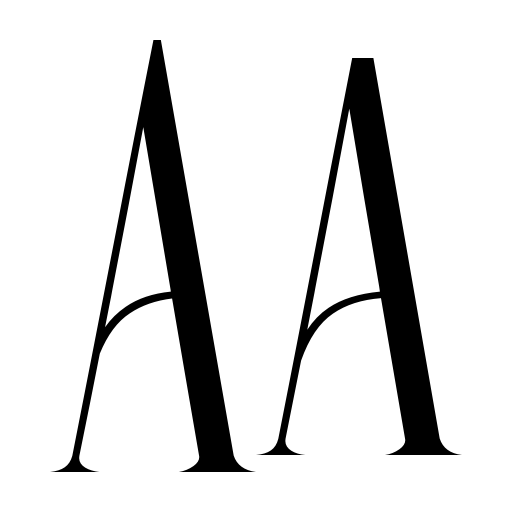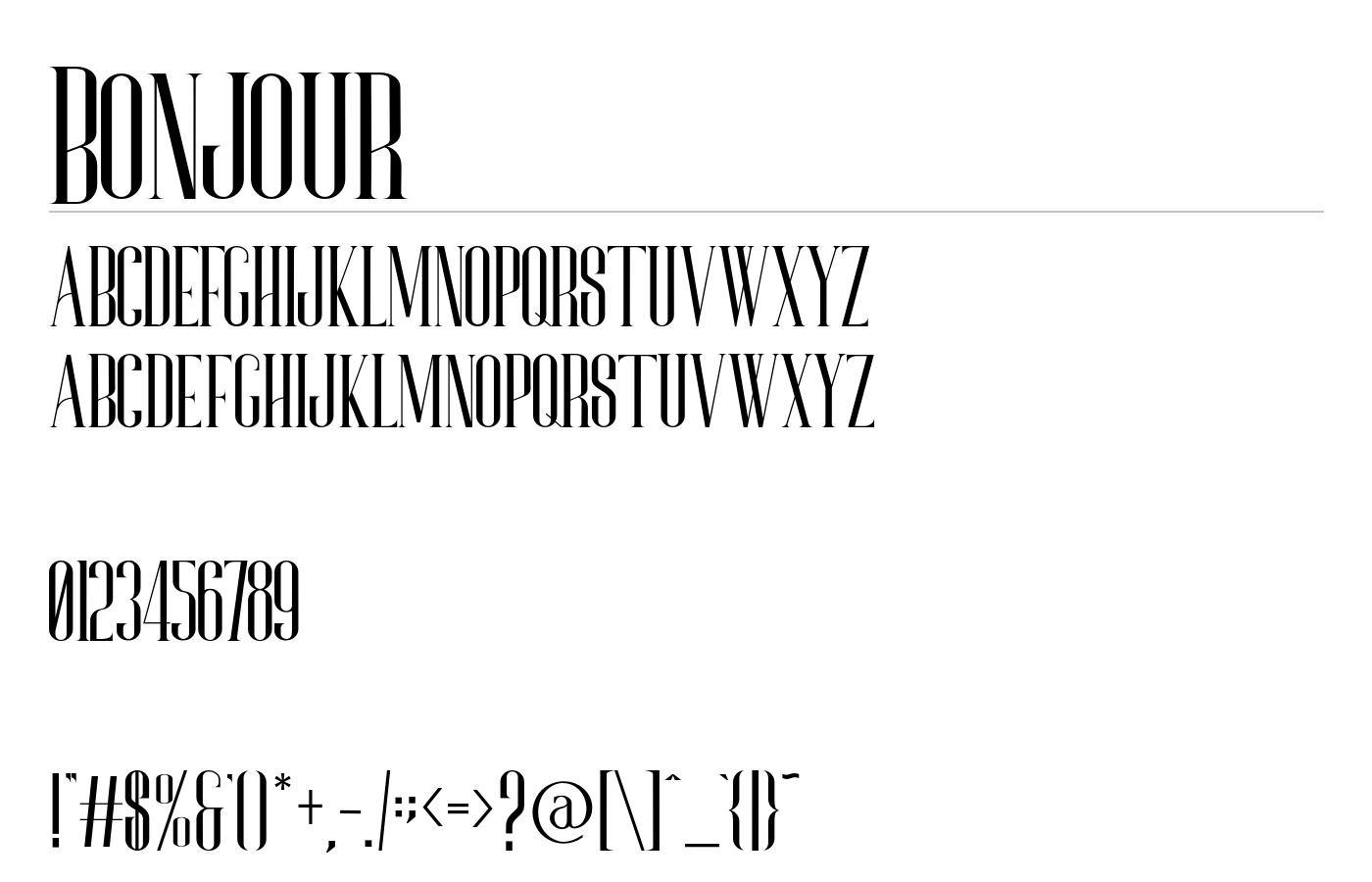
Bonjour Font is a tall, elegant serif typeface with a strong contrast between thick and thin strokes, showcasing a modern Didone style. Its condensed width and high stroke contrast give it a refined, stylish personality perfect for sophisticated branding, luxury packaging, and fashion headlines that demand a striking and graceful presence. This font works best in display settings where its unique letterforms and slender proportions can stand out with elegance and flair.
Bonjour Font
About Bonjour Font